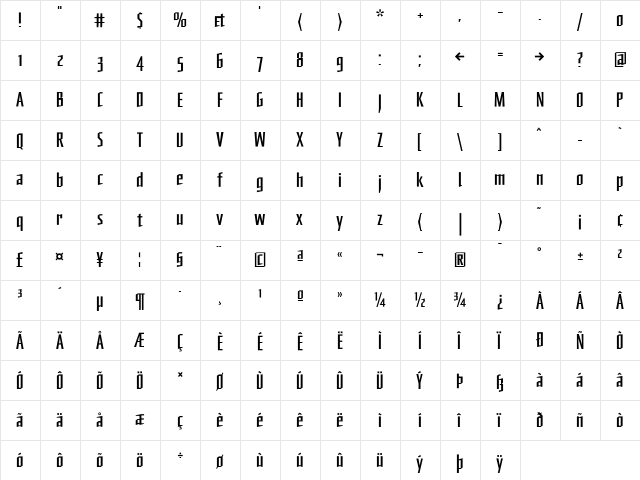
PrimaryStone Regular
Design Context for PrimaryStone Typeface
PrimaryStone is a composed and adaptable typeface that performs quietly and consistently across a wide range of design contexts.
Pro Tip: Pair PrimaryStone with a font of contrasting weight or personality to build a more expressive typographic hierarchy.